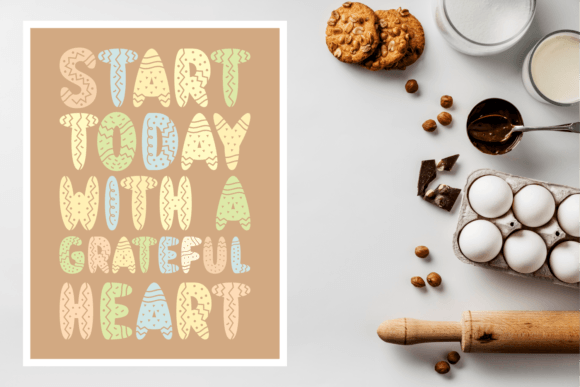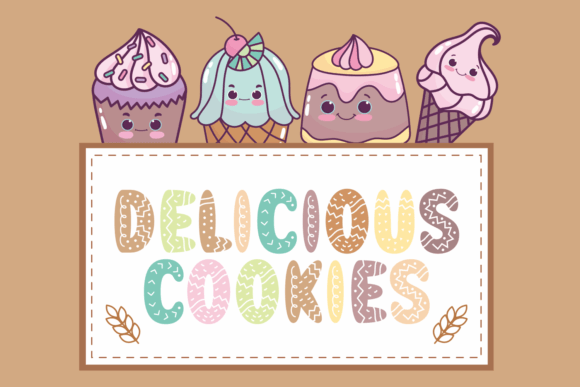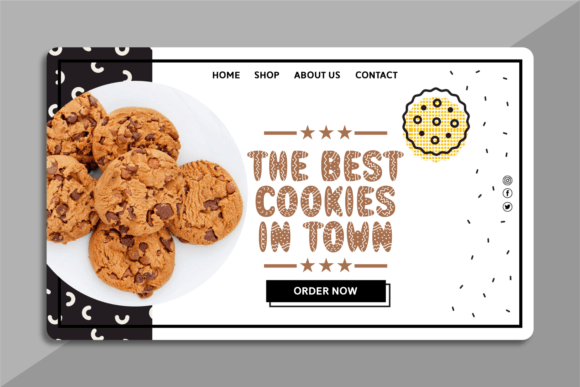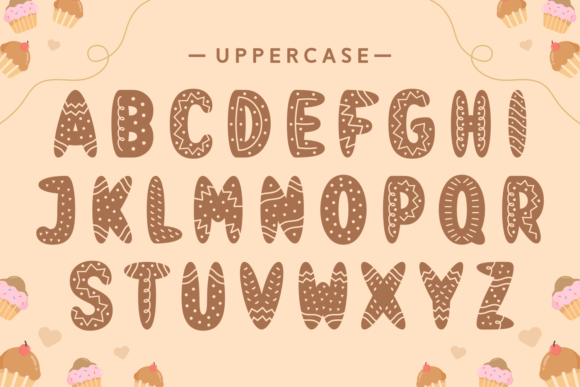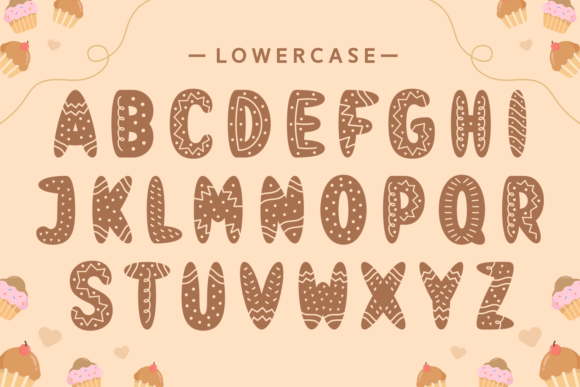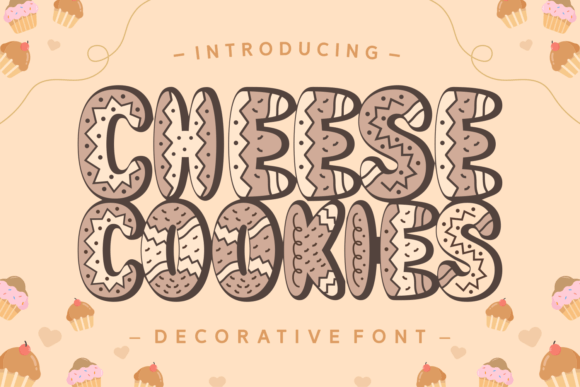
Introducing Cheese Cookies Font: The Sweetest Treat for Your Designs
Are you a designer or crafter looking for a unique and playful font to add a touch of whimsy to your projects? Look no further than Cheese Cookies Font, a delightful typeface inspired by the delicious world of cookies. This charming font is sure to satisfy your sweet tooth and bring a smile to your face.
The Inspiration Behind Cheese Cookies Font
Cheese Cookies Font is a creative interpretation of the classic cookie, transformed into a beautifully crafted letterform. Each letter is designed to resemble a cookie, complete with cute chocolate chips and icing details. The result is a stylish and eye-catching font that’s perfect for a variety of design projects.
Perfect for Playful and Whimsical Projects
Cheese Cookies Font is ideal for designers and crafters who want to add a playful touch to their work. Its unique design makes it perfect for projects such as:
- Recipe books: Add a touch of sweetness to your recipe book with Cheese Cookies Font.
- Menus: Make your menu stand out with a fun and playful font that’s sure to delight customers.
- Packaging for bakery products: Add a whimsical touch to your bakery packaging with this delightful font.
- Invitations and party decorations: Use Cheese Cookies Font to create adorable invitations and party decorations for kids’ parties or baking-themed events.
Key Features of Cheese Cookies Font
Here are some key features that make Cheese Cookies Font a standout:
- Unique letterforms: Each letter is designed to resemble a cookie, complete with chocolate chips and icing details.
- Playful design: The font’s playful design makes it perfect for projects that require a touch of whimsy.
- High-quality design: The font is beautifully crafted with attention to detail, ensuring a high-quality design that will impress.
Why Choose Cheese Cookies Font?
With so many fonts available, why choose Cheese Cookies Font? Here are just a few reasons:
- Uniqueness: Cheese Cookies Font is a one-of-a-kind font that’s sure to make your designs stand out.
- Versatility: The font can be used for a variety of design projects, from recipe books to party decorations.
Tips for Using Cheese Cookies Font
Here are a few tips for using Cheese Cookies Font in your designs:
- Pair with complementary fonts: Pair Cheese Cookies Font with complementary fonts to create a visually appealing design.
- Experiment with colors: Experiment with different colors to find the perfect combination for your design.
- Don’t be afraid to get creative: Cheese Cookies Font is a versatile font that can be used in a variety of creative ways.
Cheese Cookies Font is a delightful and playful font that’s perfect for designers and crafters looking to add a touch of whimsy to their projects. With its unique letterforms, playful design, and high-quality craftsmanship, this font is sure to satisfy your sweet tooth and bring a smile to your face. Whether you’re working on a recipe book, menu, or packaging for bakery products, Cheese Cookies Font is a sweet treat for the eyes that’s sure to delight.